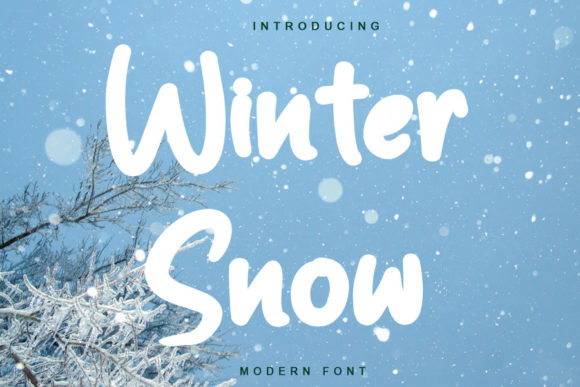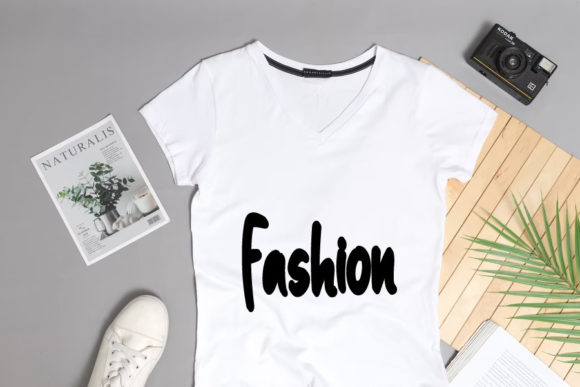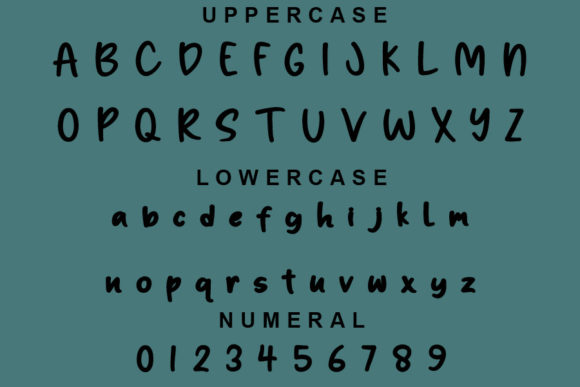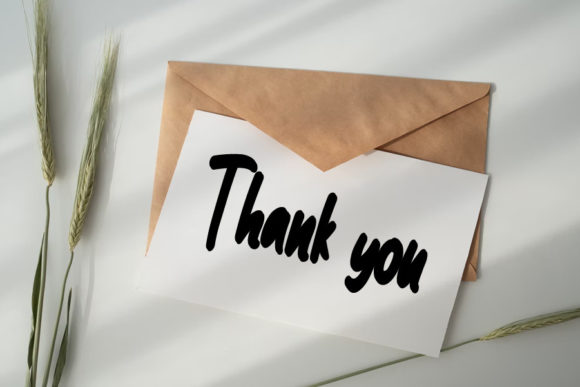
Winter Snow Font
About Winter Snow Font
Winter Snow is a cute, playful and modern handwritten font. Fall for its beautiful style and use it to create stationary art, eye-catching social media posts, and much more!